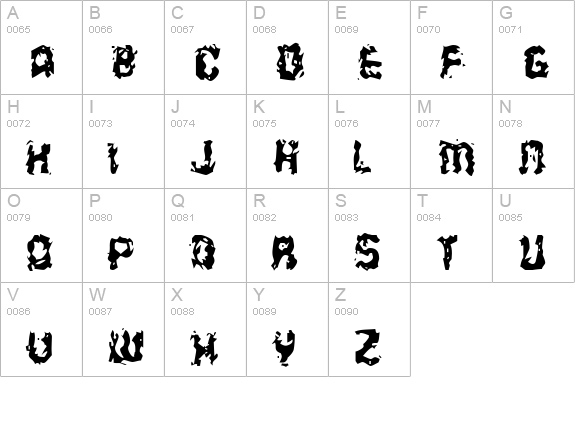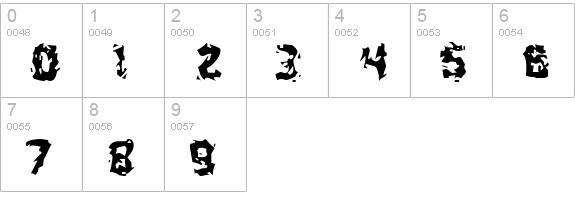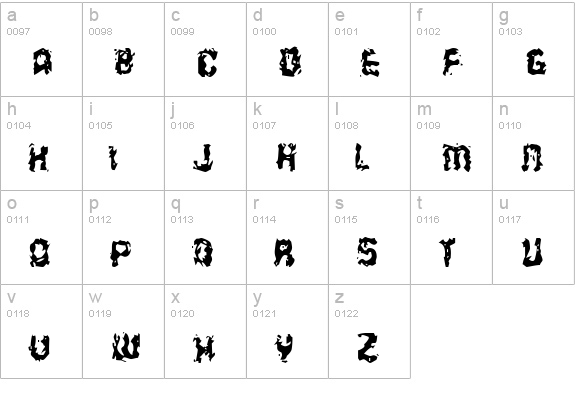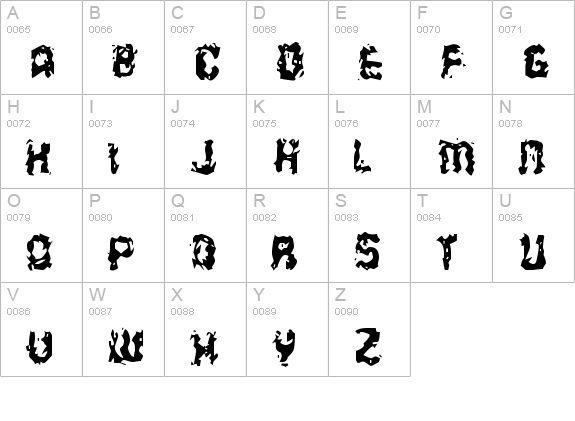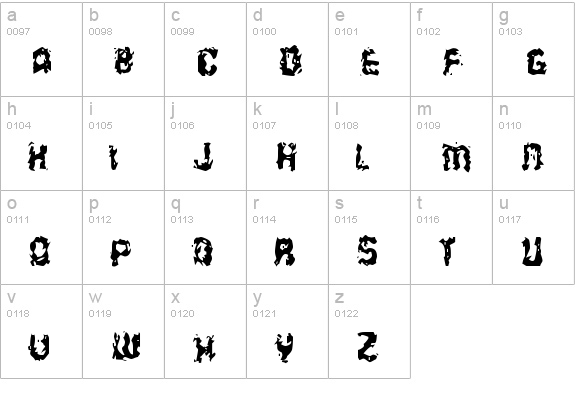
Stab Wound Font Details
Introducing Stab Wound font, a captivating and edgy typeface that will leave a lasting impression on your designs. This unique font is designed to evoke a sense of intrigue and mystery, perfect for projects that require a touch of darkness and drama. With its sharp and jagged letterforms, Stab Wound font creates a powerful visual impact, capturing attention and adding a sense of urgency to your text. Each character is meticulously crafted to resemble a knife's incision, giving your words a cutting-edge appearance that is both visually striking and symbolic. But what sets Stab Wound font apart is not just its visual appeal, it's also the fact that it is freely available to download at FontsMarket.com. Yes, you read that right - this extraordinary font can be yours at no cost, allowing you to enhance your designs without breaking the bank. Whether you're working on a poster, a logo, a website, or any other creative project, Stab Wound font will effortlessly inject a dose of intensity and sophistication. Its versatility makes it suitable for a wide range of applications, from horror movie titles to tattoo designs, album covers to book covers, and everything in between. So why settle for ordinary when you can elevate your designs with Stab Wound font? Download it now for free at FontsMarket.com and let your creativity soar to new heights. Unleash the power of this remarkable font and make a bold statement that will leave a lasting impression on your audience.